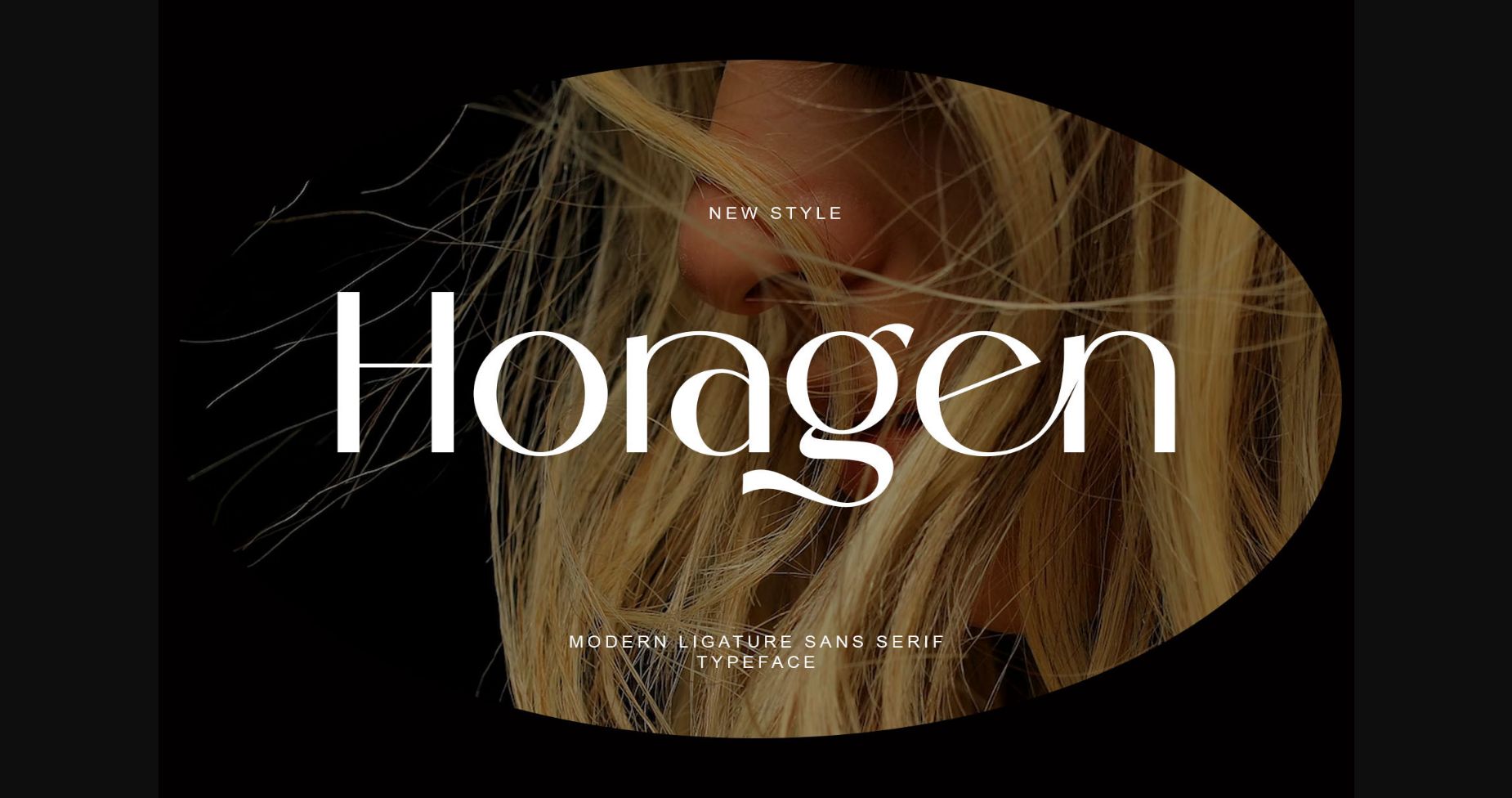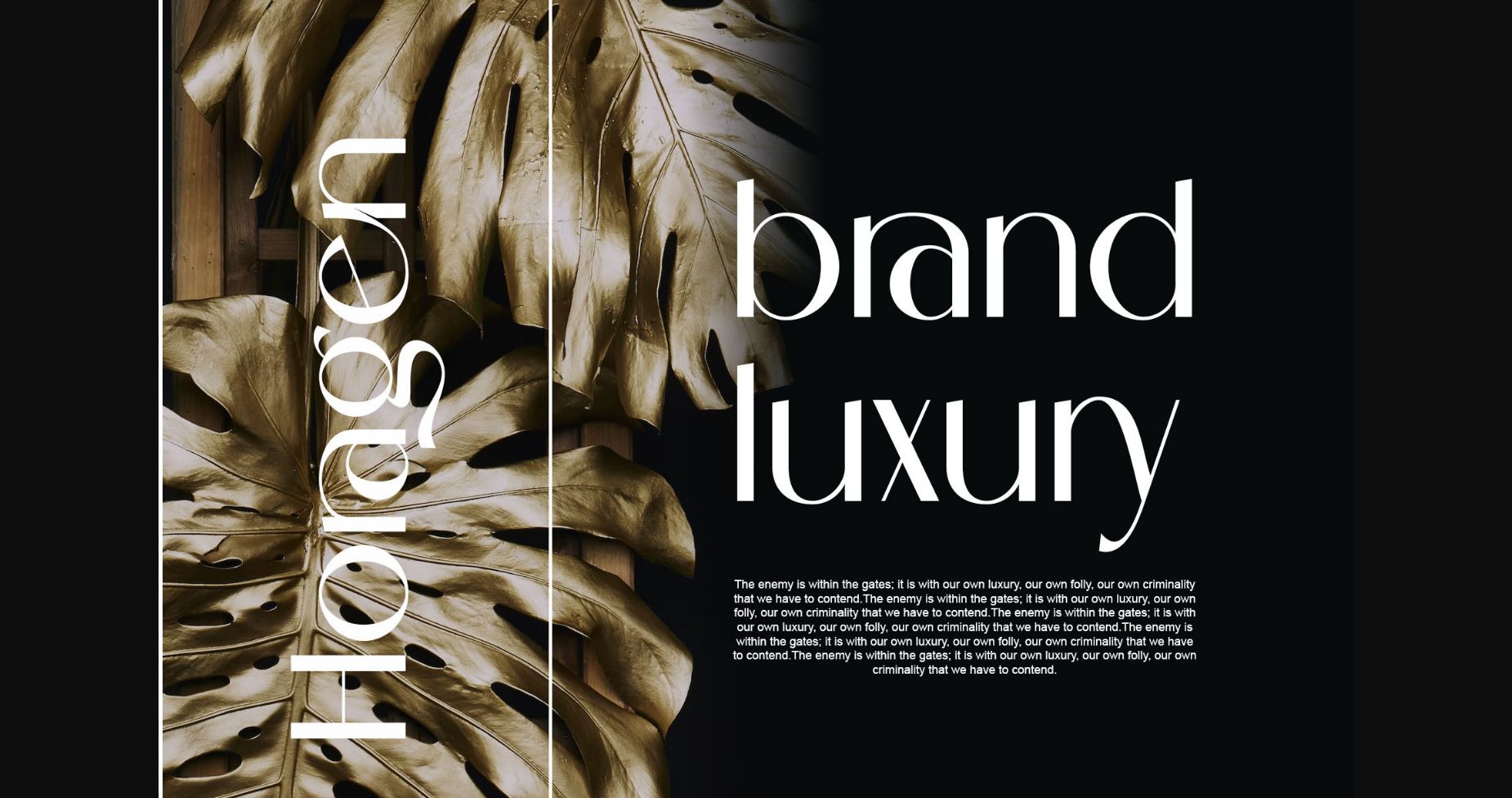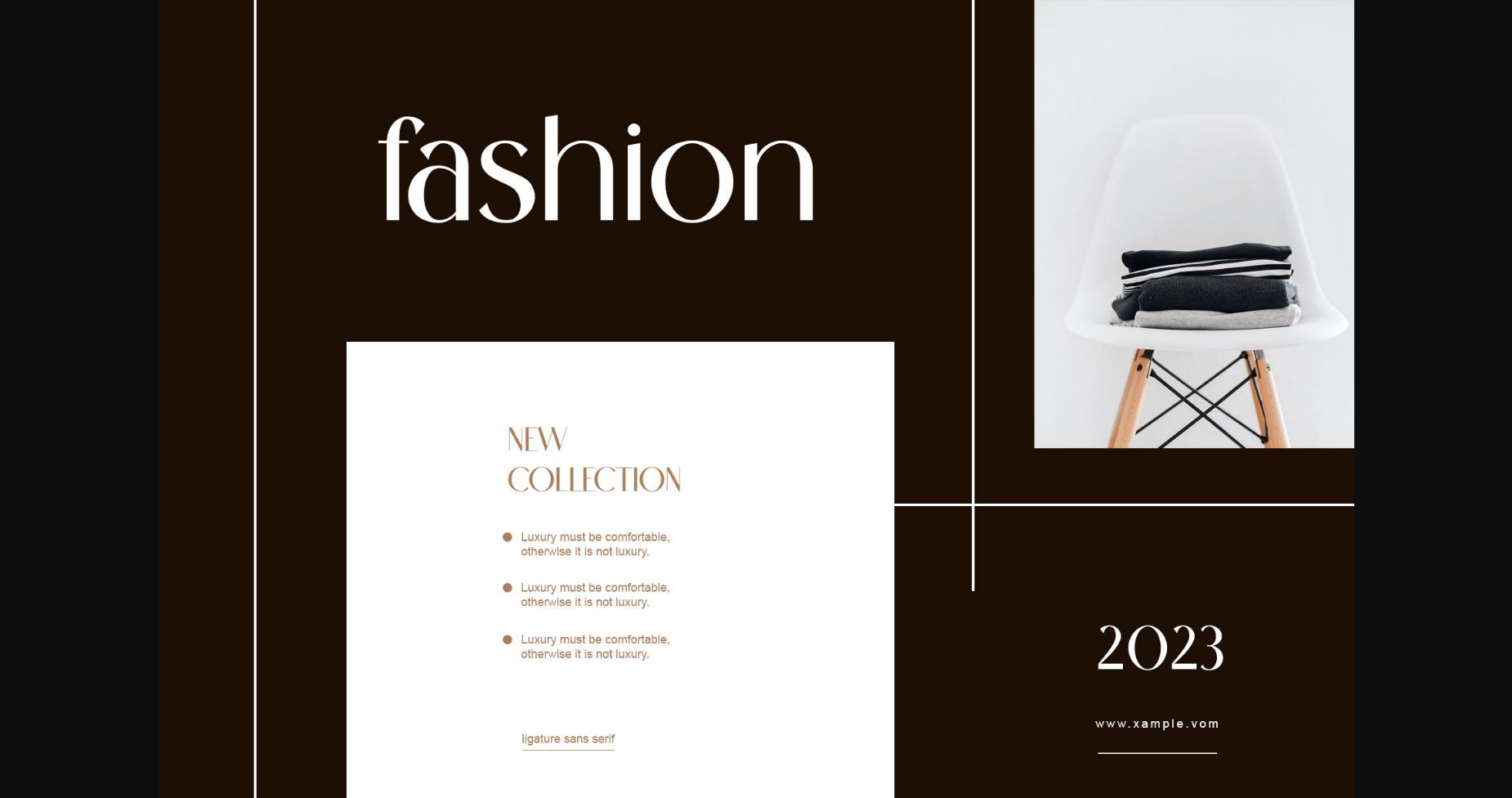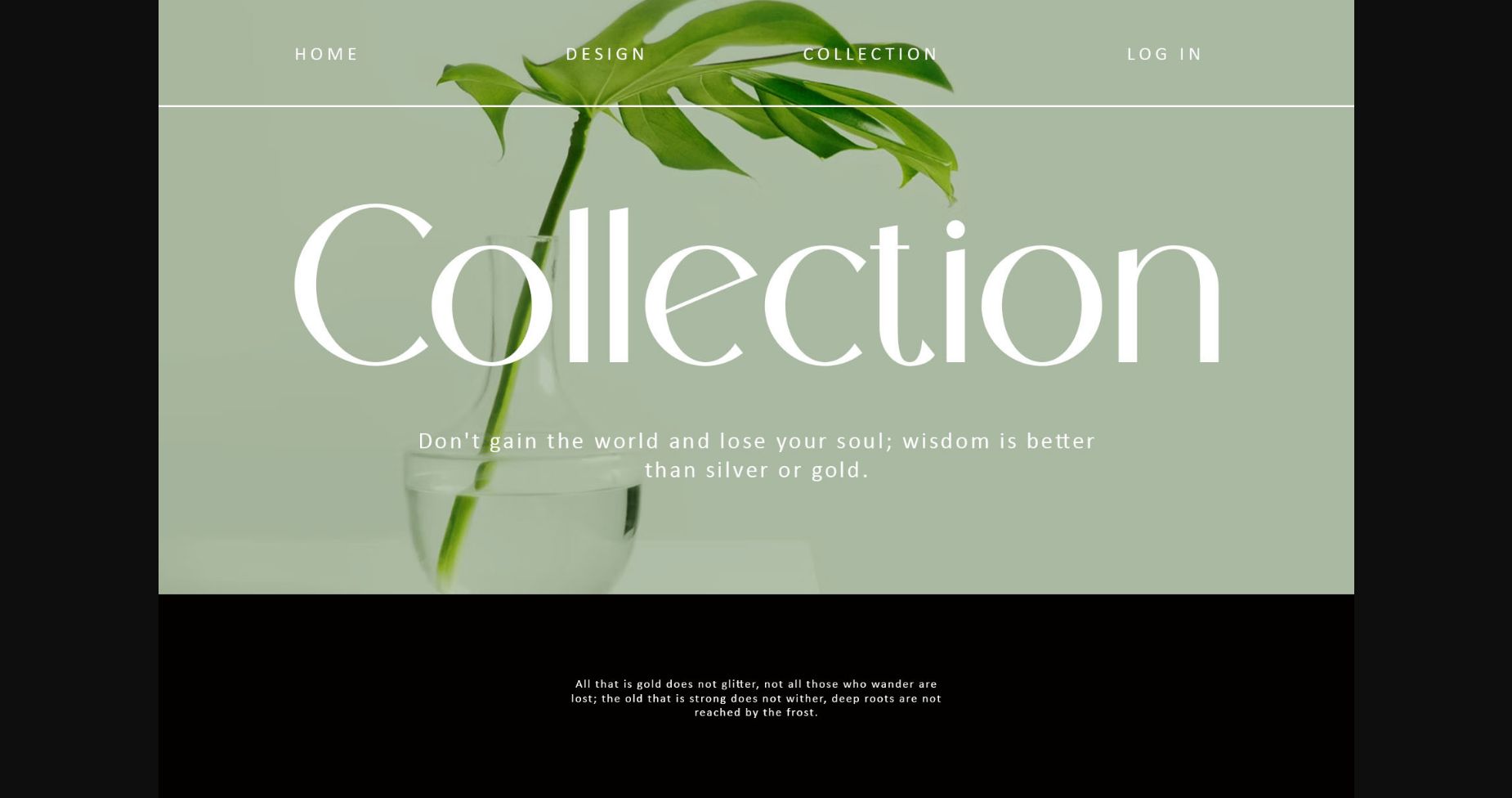
About Horagen Font
Horagen is a sans serif font with simple, clean, and visual elegance. Specially designed for elegant-themed projects, perfectly suitable for creating luxurious designs such as logos, invitations for fashion events, magazines, and more. Keep in mind that the font is PUA encoded, meaning that you can access all delightful glyphs and swashes effortlessly.